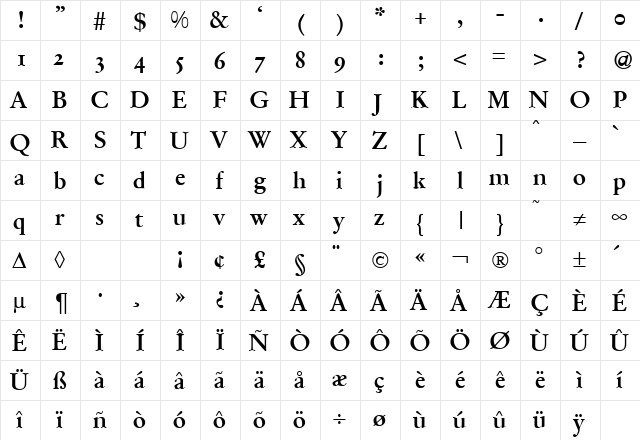
GaramondOriginalOsf Bold
Design Context for GaramondOriginalOsf Typeface
GaramondOriginalOsf offers clean, dependable letterforms without strong stylistic allegiance, making it a practical choice for designers who need flexibility. Its bold stroke weight gives it real presence on the page.